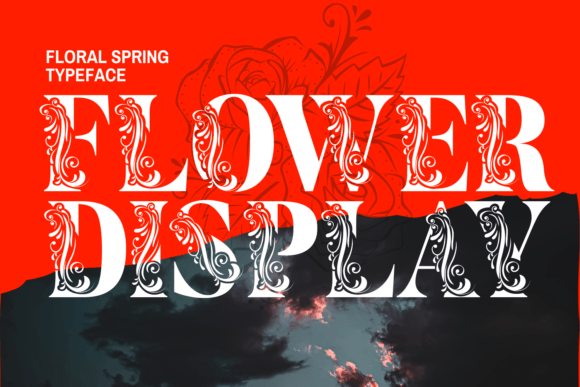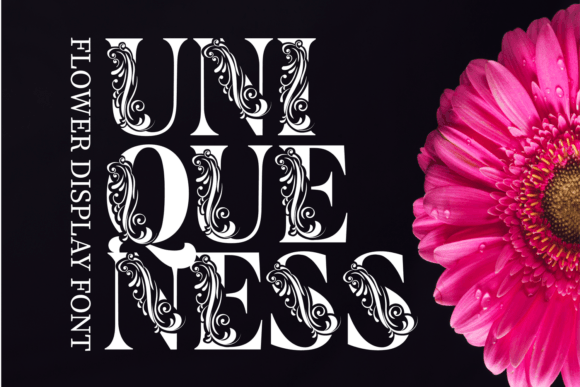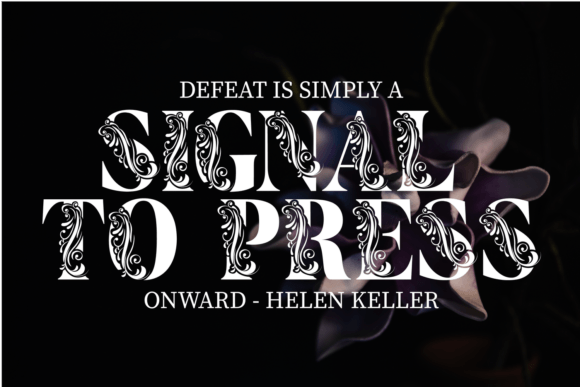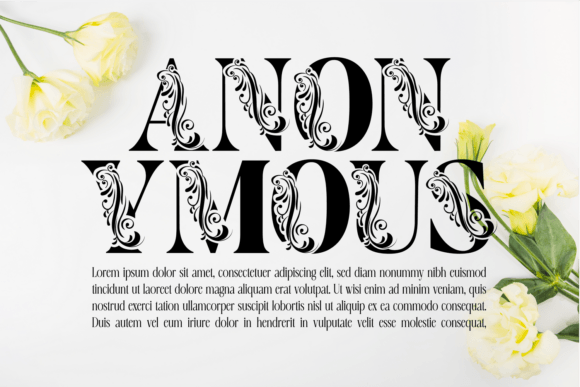
Flower Display Font
About the Flower Display Font
Presenting Flower Display Font, a unique and stylish typeface that will make your work stand out. Flower Display is an incredibly stylish and aesthetically pleasing decorative font. Its delicate decorative elements make it the perfect typeface for cosmetics packaging, feminine social media posts, mental health stickers, or anything that requires a dainty, yet luxurious touch.
Flower Display excels in applications requiring a touch of elegance and femininity, such as logos for beauty brands, wedding invitations, or short-form content on social media. Its decorative nature makes it unsuitable for body text or extended reading; legibility suffers at smaller sizes. Avoid using it in user interfaces or situations demanding high readability.
Consider pairing Flower Display with a clean sans-serif like Lato for body copy to create a balanced contrast between the decorative headline and the easily readable text. Alternatively, a classic serif such as Garamond would lend a sophisticated, timeless feel. For a more modern aesthetic, pair it with a geometric sans-serif font such as Futura.
The font’s overall personality is undeniably elegant and delicate, yet also possesses a playful charm. Its decorative flourishes suggest a brand that is both sophisticated and approachable, favouring luxury but with a soft touch.
Flower Display Font Usage Examples
Flower Display Font Example